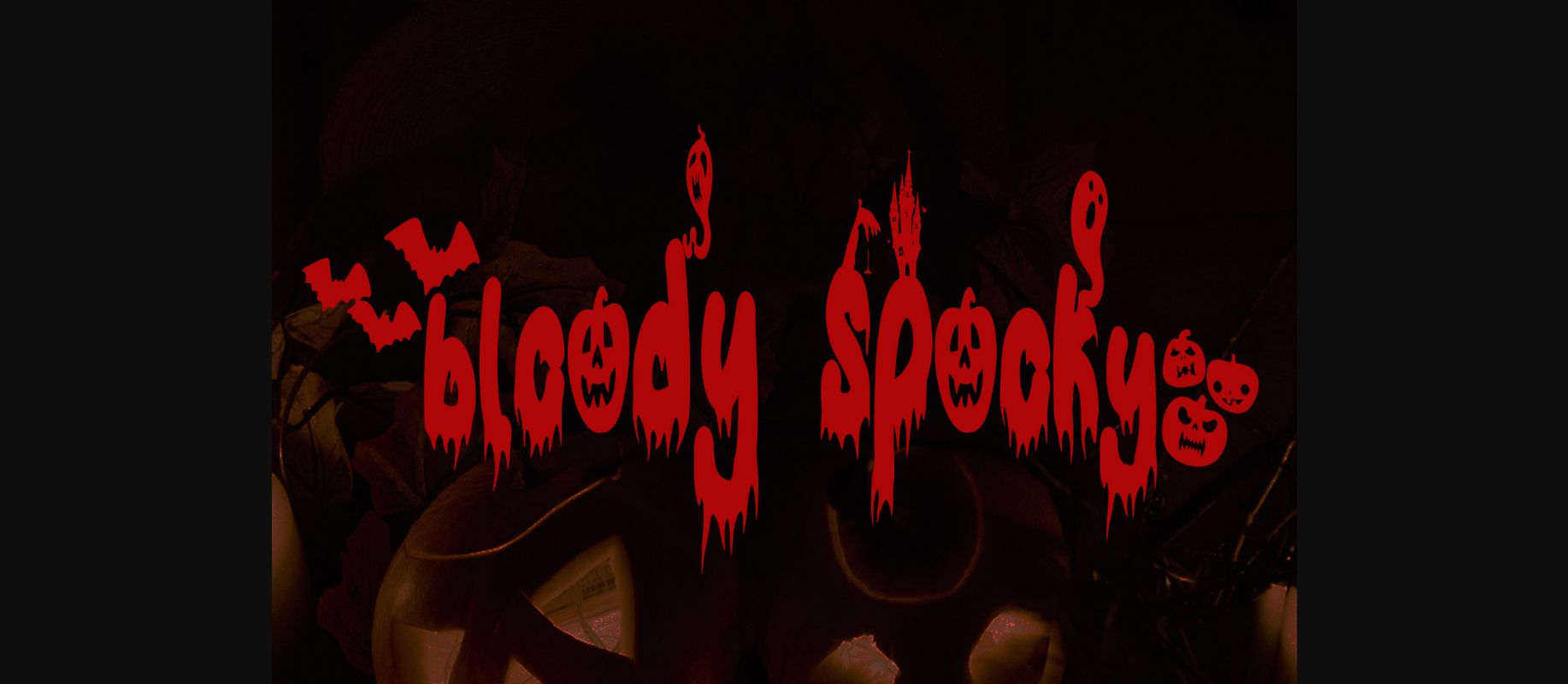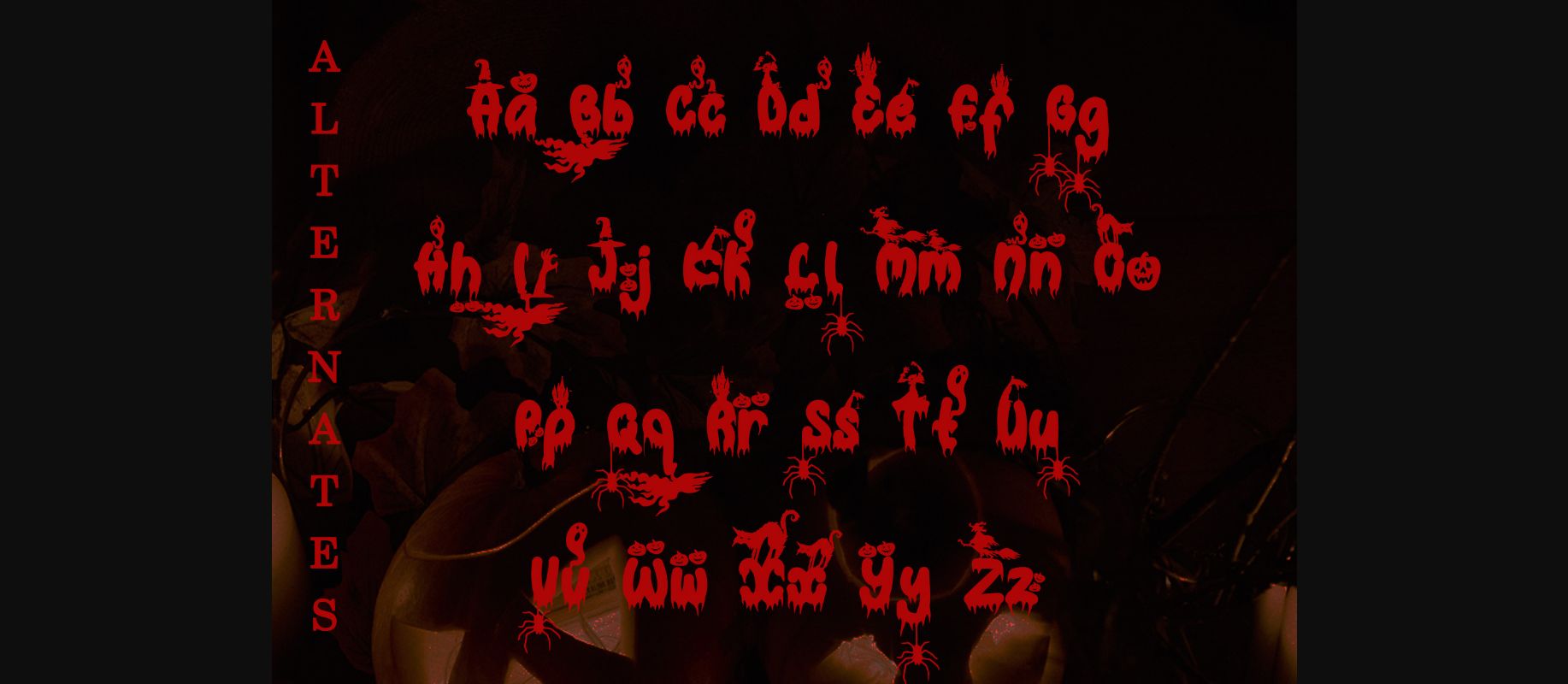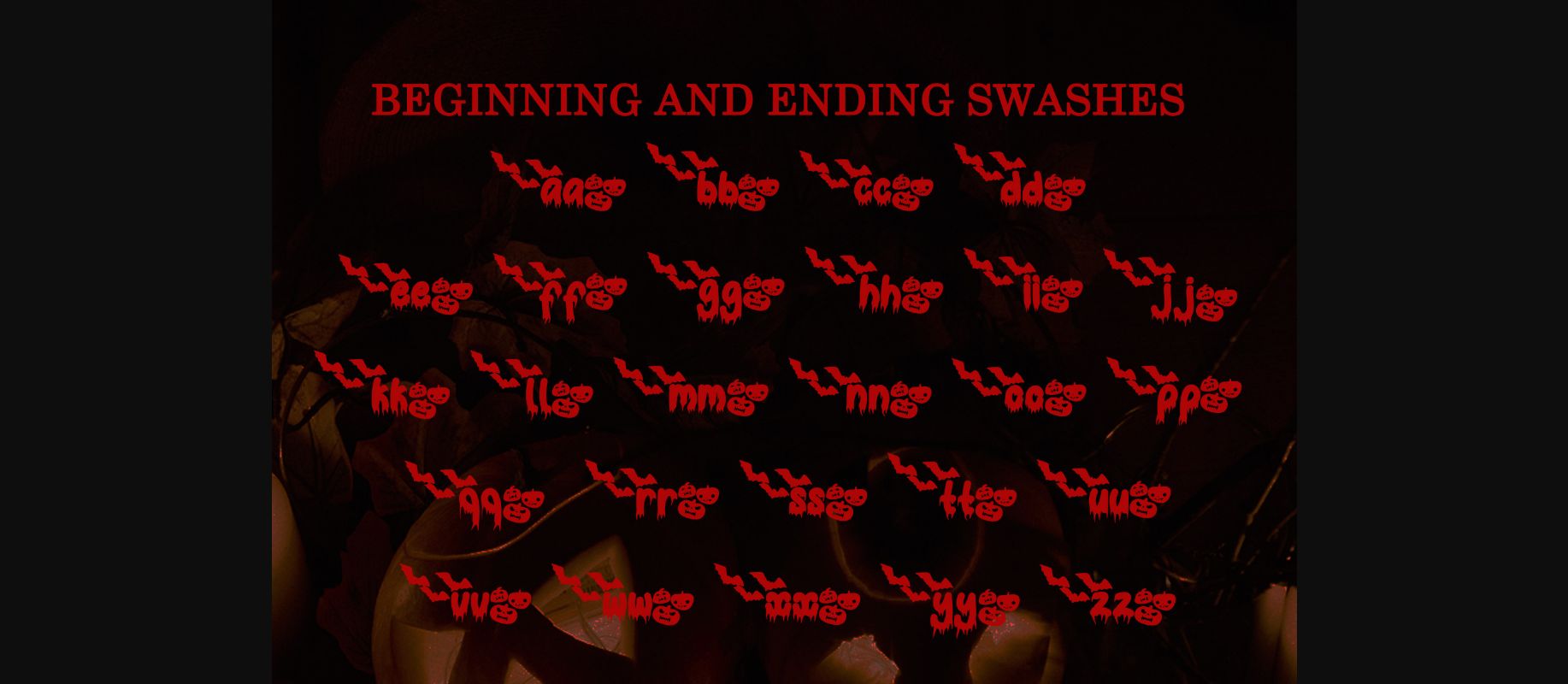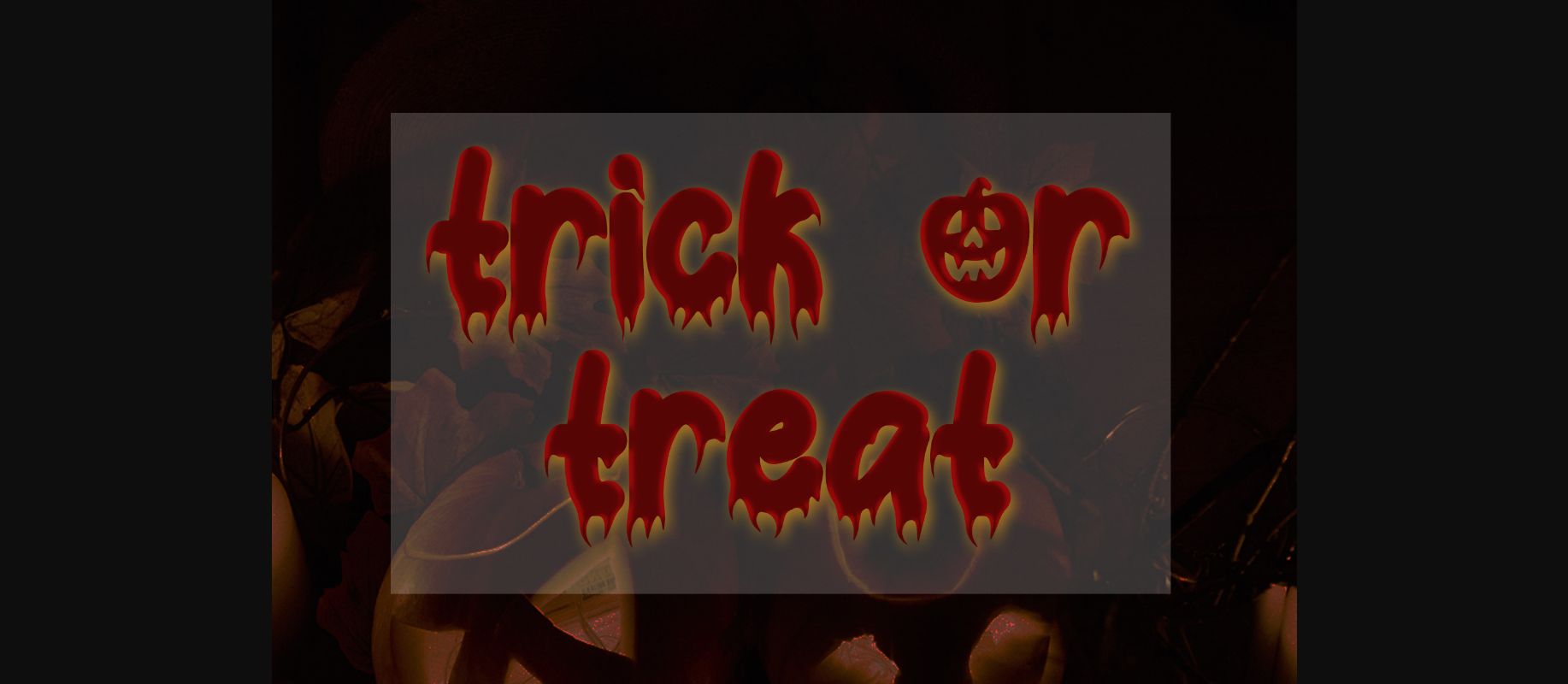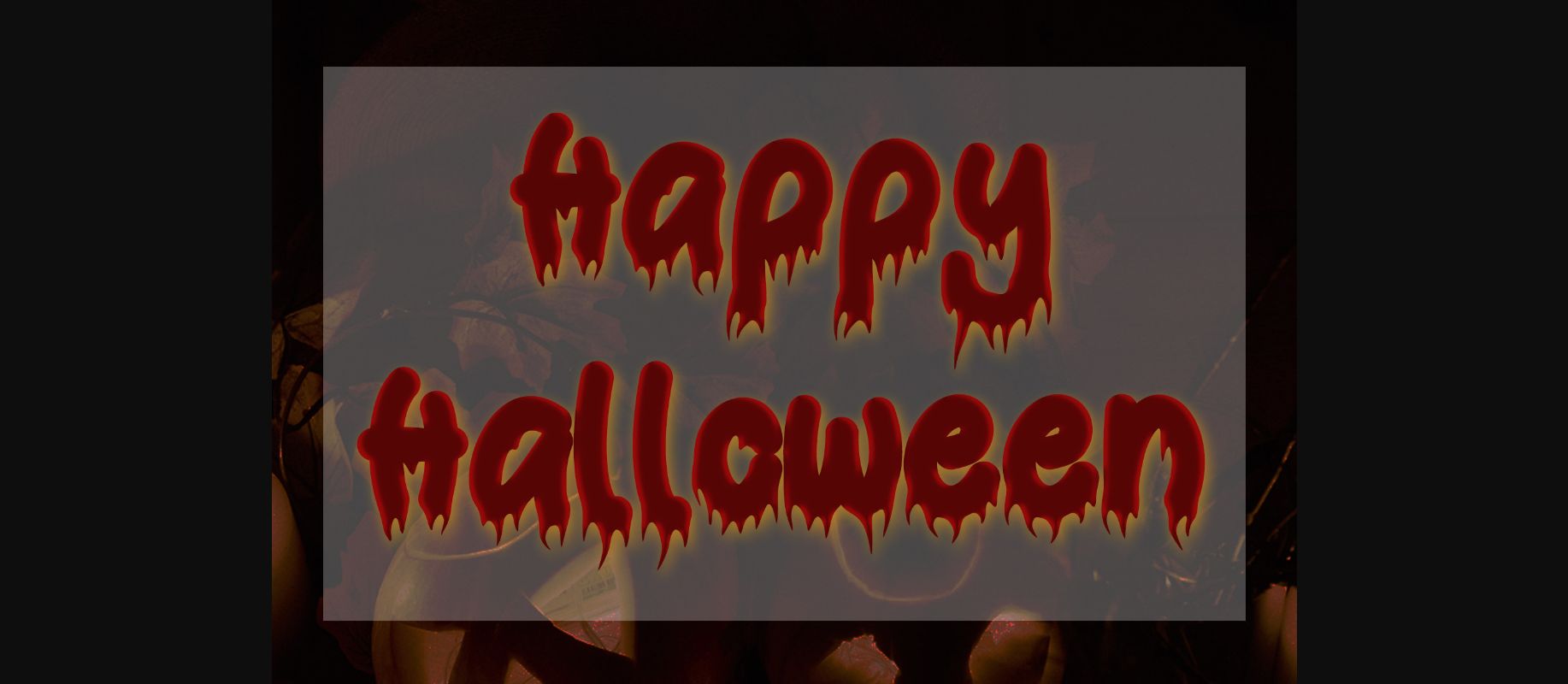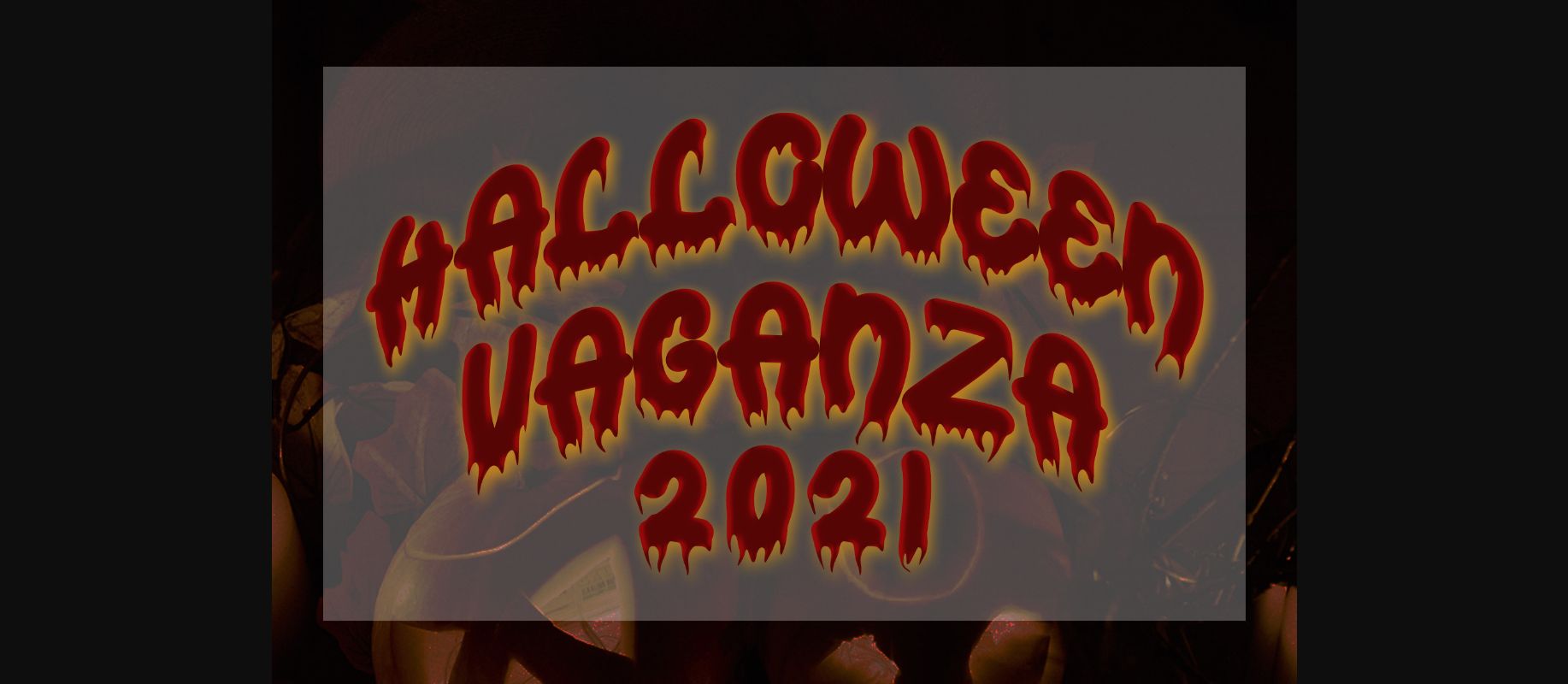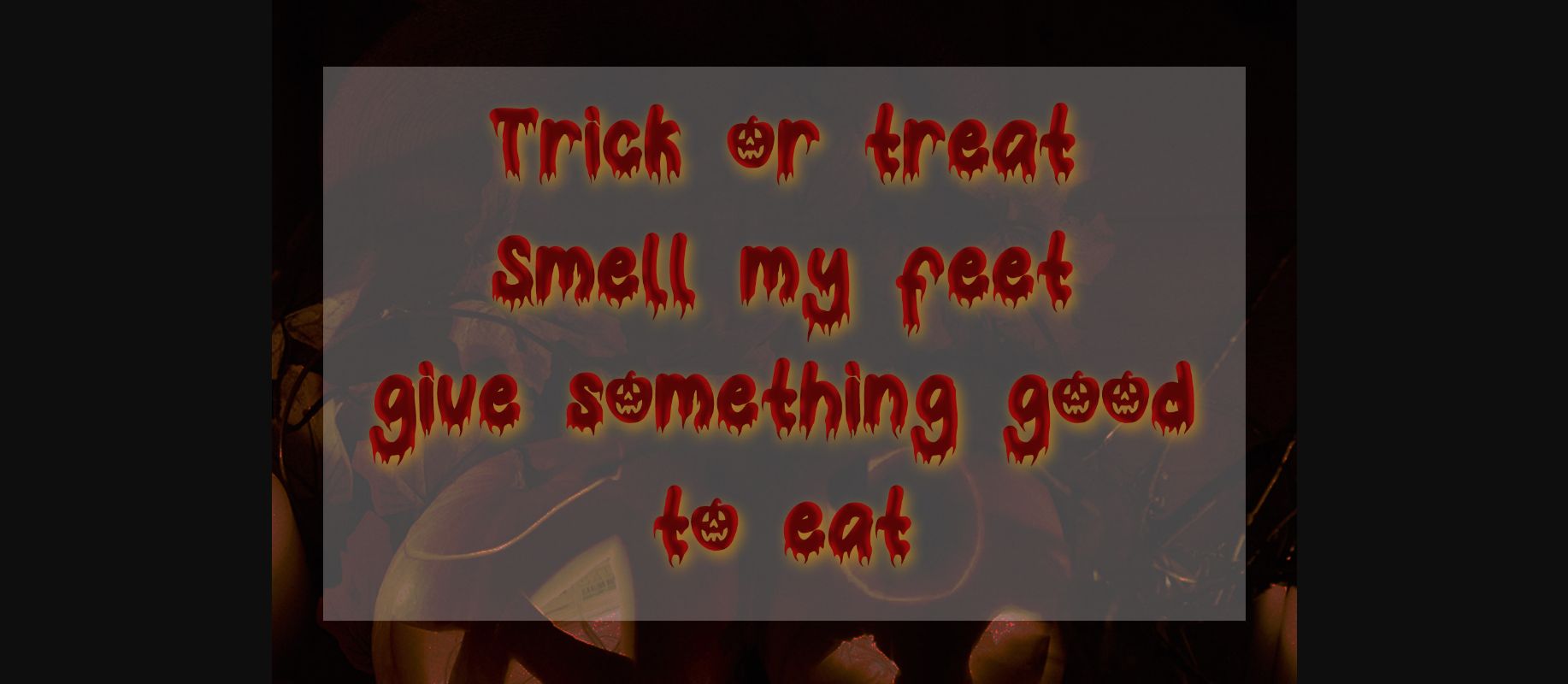
Bloody Spooky Font
About Bloody Spooky Font
Bloody Spooky is a thick-lettered and spooky decorative font. It is perfectly suitable for any Halloween-related project or crafty idea! This font is PUA encoded which means you can access all of the glyphs and swashes with ease!